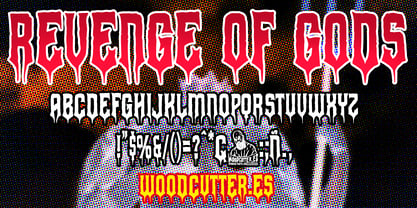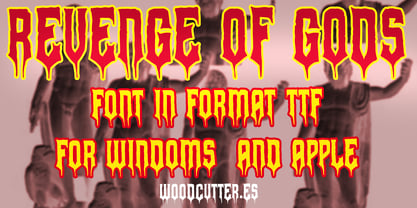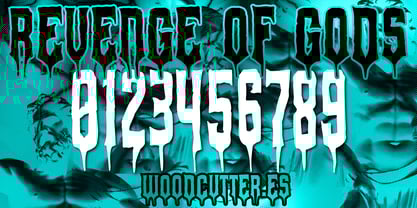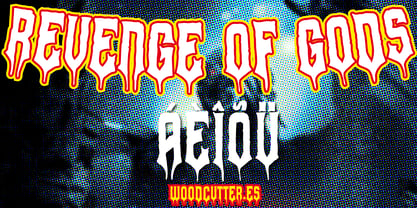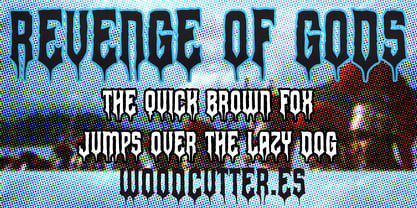
Revenge of Gods
by Woodcutter
The Revenge of Gods Font Family was designed by Jordi Manero and published by Woodcutter. Revenge of Gods contains 1 styles. More about this family
“Revenge of Gods” is an uppercase typeface that blends a gothic fantasy style with a bold and aggressive design. Its letters have a hard and sharp appearance, with pointed edges that evoke a sense of authority and mystery. The strokes are solid and well-defined, making it ideal for impactful headlines in projects related to mythology, dark fantasy, or medieval epics. It also includes accents, making it versatile for multilingual texts. Perfect for posters, logos, or designs aiming to convey strength and drama, “Revenge of Gods” is a striking and characterful typeface.
Revenge of Gods